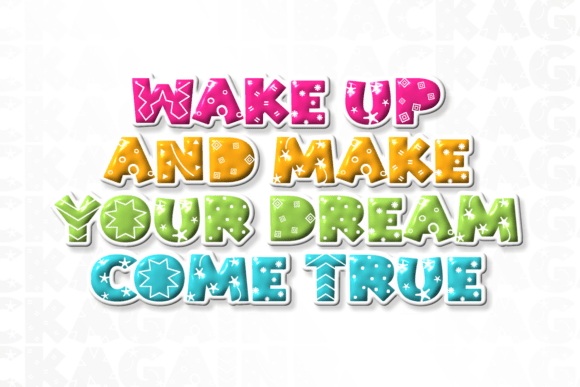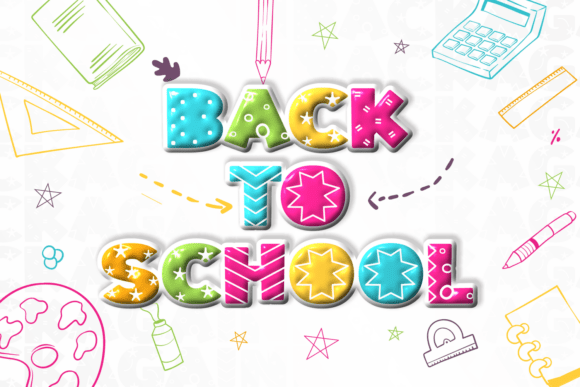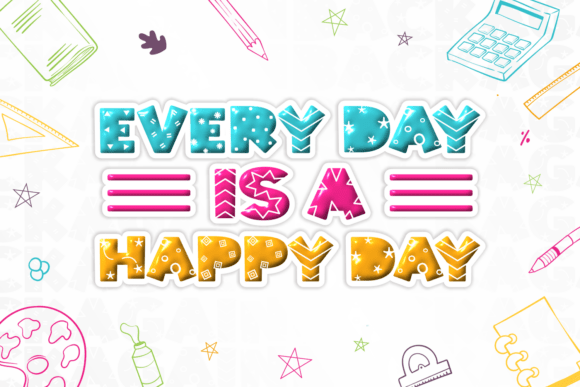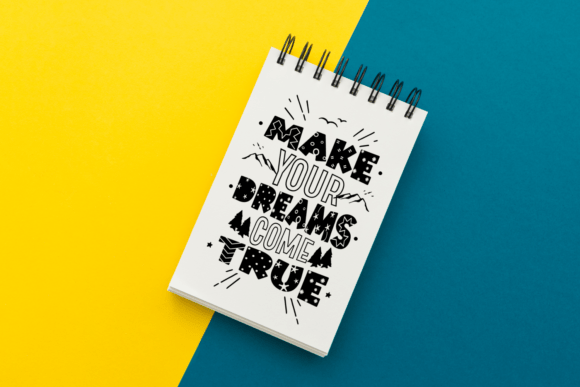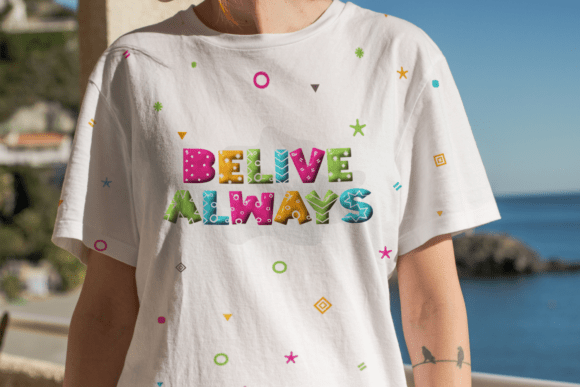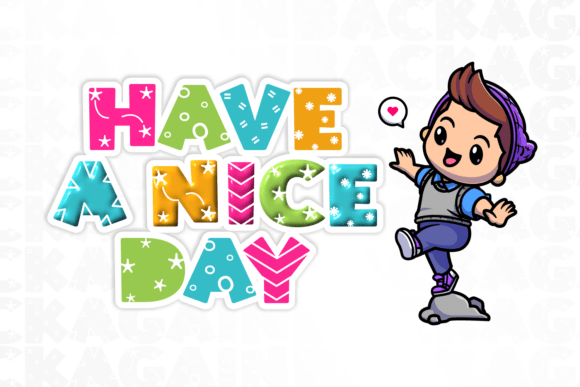
Introducing Back Again Font: The Ultimate Playful Display Font for Creative Projects
Are you tired of using the same old fonts for your design projects? Look no further than Back Again Font, a playful decorative display font that’s bursting with color, character, and fun. This exciting new font is perfect for designers, crafters, and DIY enthusiasts who want to add a touch of whimsy and personality to their creations.
A Font that’s Full of Character
Back Again Font is a bold and eye-catching typeface that’s designed to make a statement. Each letter is styled with bold shapes and patterns, making it perfect for projects that need a cheerful and eye-catching look. Whether you’re working on a children’s book, poster, party invitation, T-shirt, packaging, logo, sticker, or social media graphic, this font is sure to bring a smile to your audience’s face.
Ideal for a Wide Range of Projects
Back Again Font is incredibly versatile and can be used for a wide range of projects, including:
• Children’s books: Add a touch of magic and wonder to your storybook with this playful font.
• Posters: Create eye-catching posters for events, promotions, or advertisements.
• Party invitations: Make your party invitations stand out with a fun and playful font.
• T-shirts: Design bold and eye-catching T-shirts for kids and adults alike.
• Packaging: Add a touch of personality to your product packaging with this unique font.
• Logos: Create a memorable and playful logo for your business or brand.
• Stickers: Design fun and colorful stickers for kids or as promotional materials.
• Social media graphics: Add a touch of whimsy to your social media graphics and stand out from the crowd.
Perfect for DIY Crafts and Creative Projects
Back Again Font is especially suited for DIY crafts, Cricut and Silhouette projects, and creative event materials. Whether you’re a crafter, scrapbooker, or DIY enthusiast, this font is perfect for adding a personal touch to your creations. Use it to create custom vinyl decals, iron-on designs, or paper crafts that are sure to impress.
Bring Life and Playfulness to Your Creations
Back Again Font is more than just a font – it’s a way to bring life and playfulness to your creations. Its quirky and vibrant personality makes it perfect for projects that need a little extra energy and joy. With this font, you can:
• Add a touch of whimsy to your designs
• Create eye-catching and memorable graphics
• Make your projects stand out from the crowd
• Bring a smile to your audience’s face
Key Features of Back Again Font
Here are some key features of Back Again Font:
• Playful and decorative display font
• Bold shapes and patterns
• Perfect for children’s books, posters, party invitations, T-shirts, packaging, logos, stickers, and social media graphics
• Ideal for DIY crafts, Cricut and Silhouette projects, and creative event materials
• Quirky and vibrant personality
• Easy to use and customize
Get Ready to Have Fun with Back Again Font
In conclusion, Back Again Font is a unique and exciting new font that’s perfect for designers, crafters, and DIY enthusiasts. Its playful and decorative design makes it ideal for a wide range of projects, from children’s books to social media graphics. With its quirky and vibrant personality, this font is sure to bring life and playfulness to your creations. So why wait? Download Back Again Font today and start creating unforgettable designs!